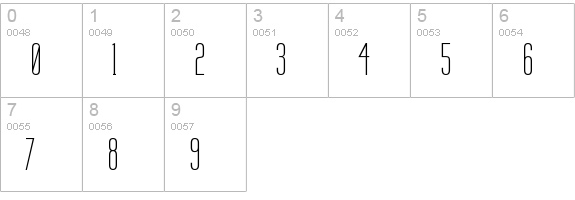
Introducing Labtop Overscore, a stunningly elegant font that effortlessly combines modern aesthetics with a touch of classic charm. This versatile typeface is perfect for a wide range of design projects, from sleek and contemporary to timeless and sophisticated. Labtop Overscore boasts a unique balance of clean lines and subtle curves, creating a harmonious visual experience that captivates the eye. Its smooth and legible letterforms make it ideal for both display purposes and body text, offering maximum readability without compromising on style. What sets Labtop Overscore apart is its versatility and adaptability. Whether you're designing a logo, crafting an eye-catching headline, or creating a striking poster, this font effortlessly enhances your work with its refined elegance. Its extensive character set includes uppercase and lowercase letters, numerals, punctuation marks, and a range of special characters, giving you ample creative freedom to bring your ideas to life. And the best part? Labtop Overscore is available for free! Yes, you read that right. This exceptional font can be freely downloaded at FontsMarket.com, making it accessible to designers, creatives, and enthusiasts alike. Say goodbye to expensive font licenses and hello to limitless possibilities with Labtop Overscore. So, why wait? Elevate your designs with Labtop Overscore and unlock a world of creative potential. Download this exquisite font today and experience the beauty and versatility it has to offer.